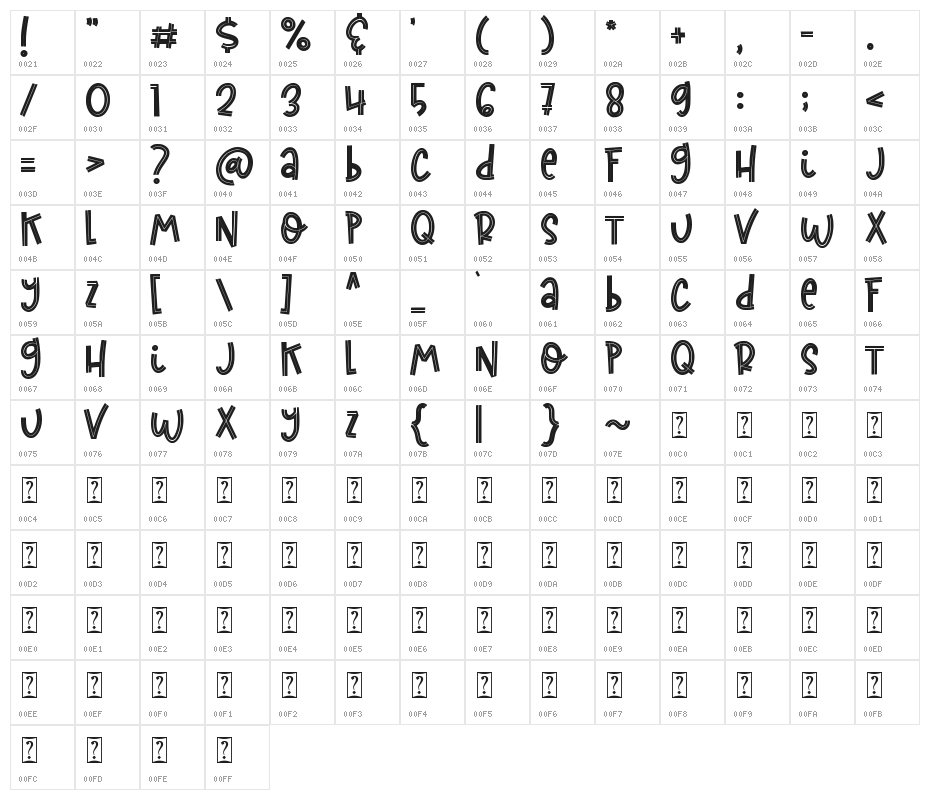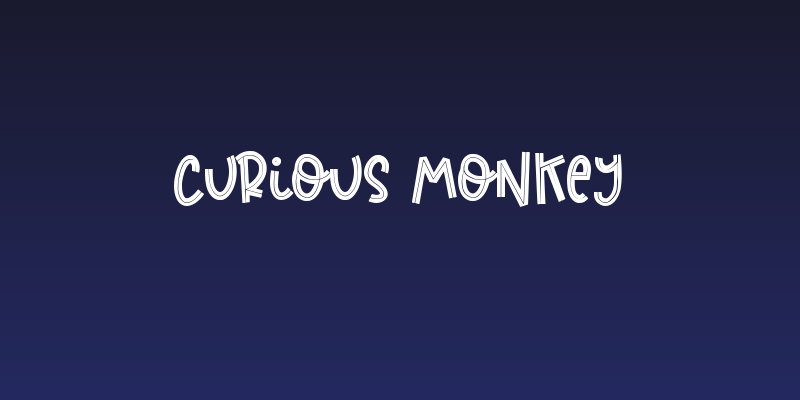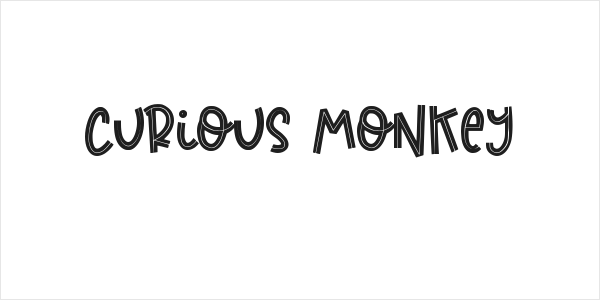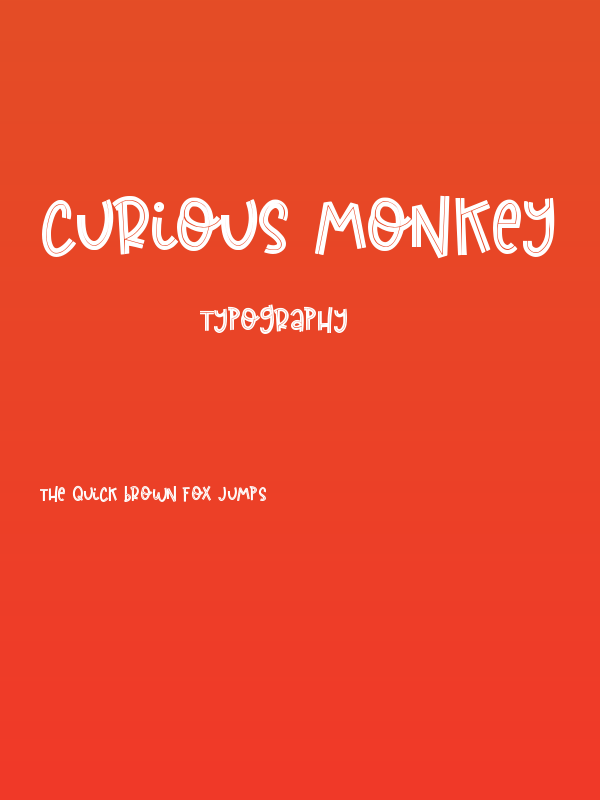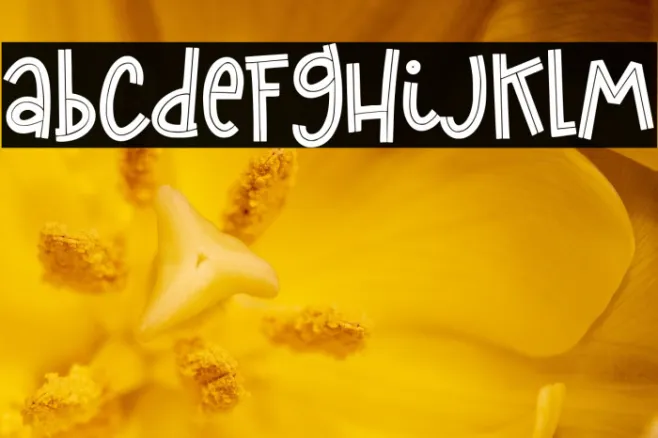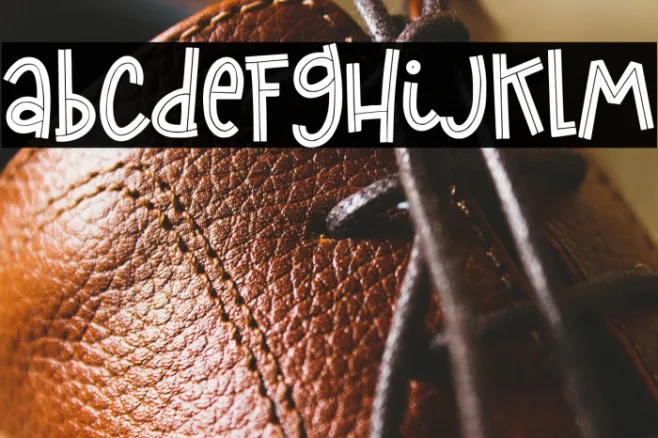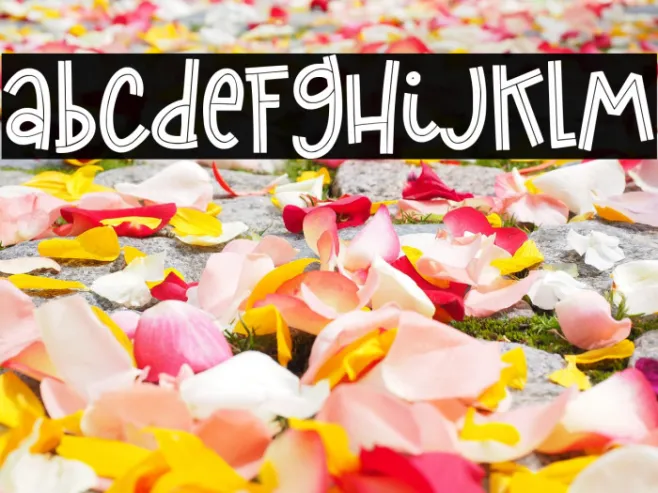
curious monkey Font
curious monkey Description
This playful and whimsical font features bold, exaggerated strokes with a hand-drawn aesthetic. The characters have a lively, cartoonish feel, with uneven lines and a slightly irregular baseline that adds to its charm. The uppercase and lowercase letters maintain a consistent style, while the numerals and special characters complement the overall design. The font's unique personality makes it stand out, perfect for projects that require a fun and informal touch.
| Proposed Projects | Ideal for children's books, comic strips, playful branding, greeting cards, and party invitations. |